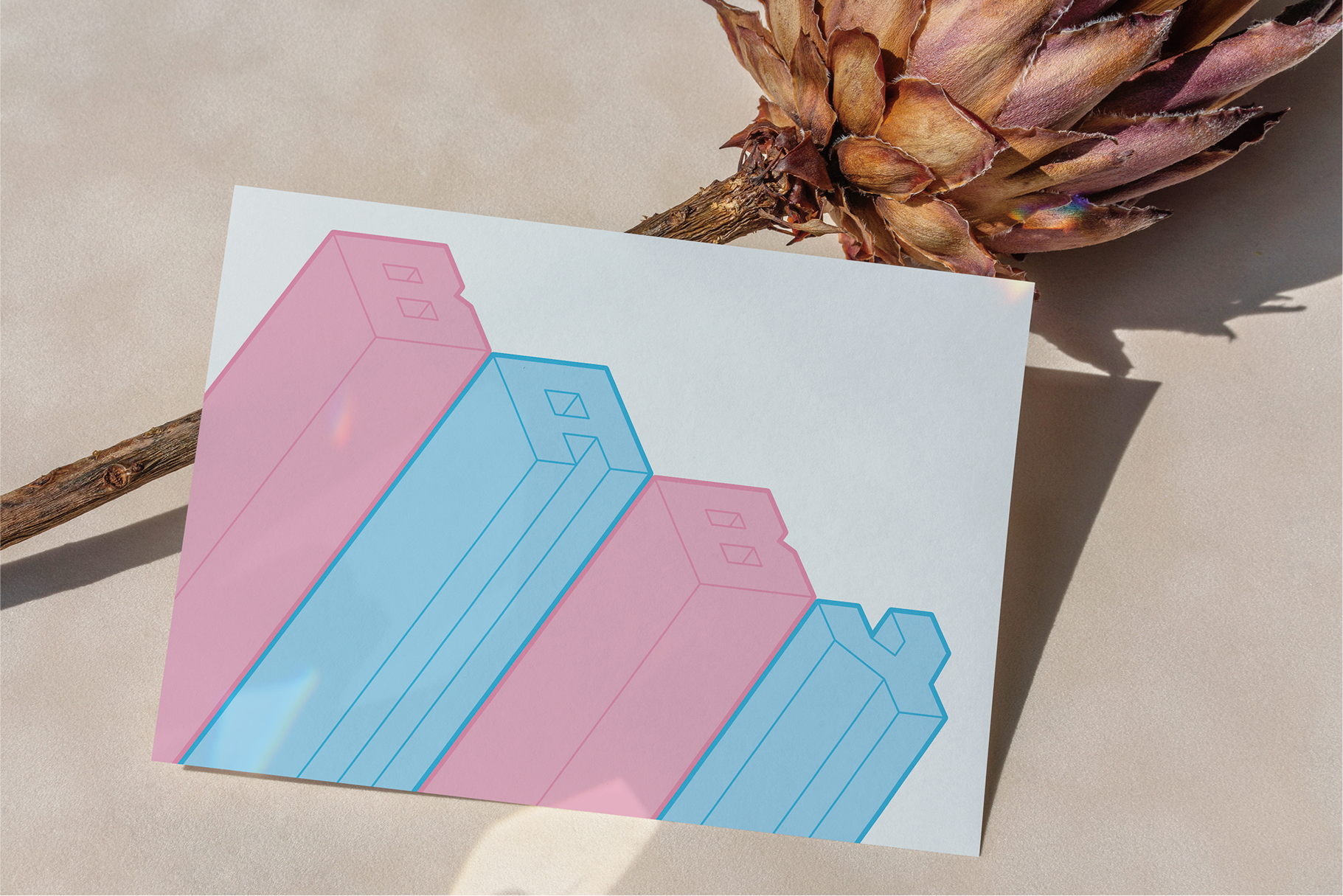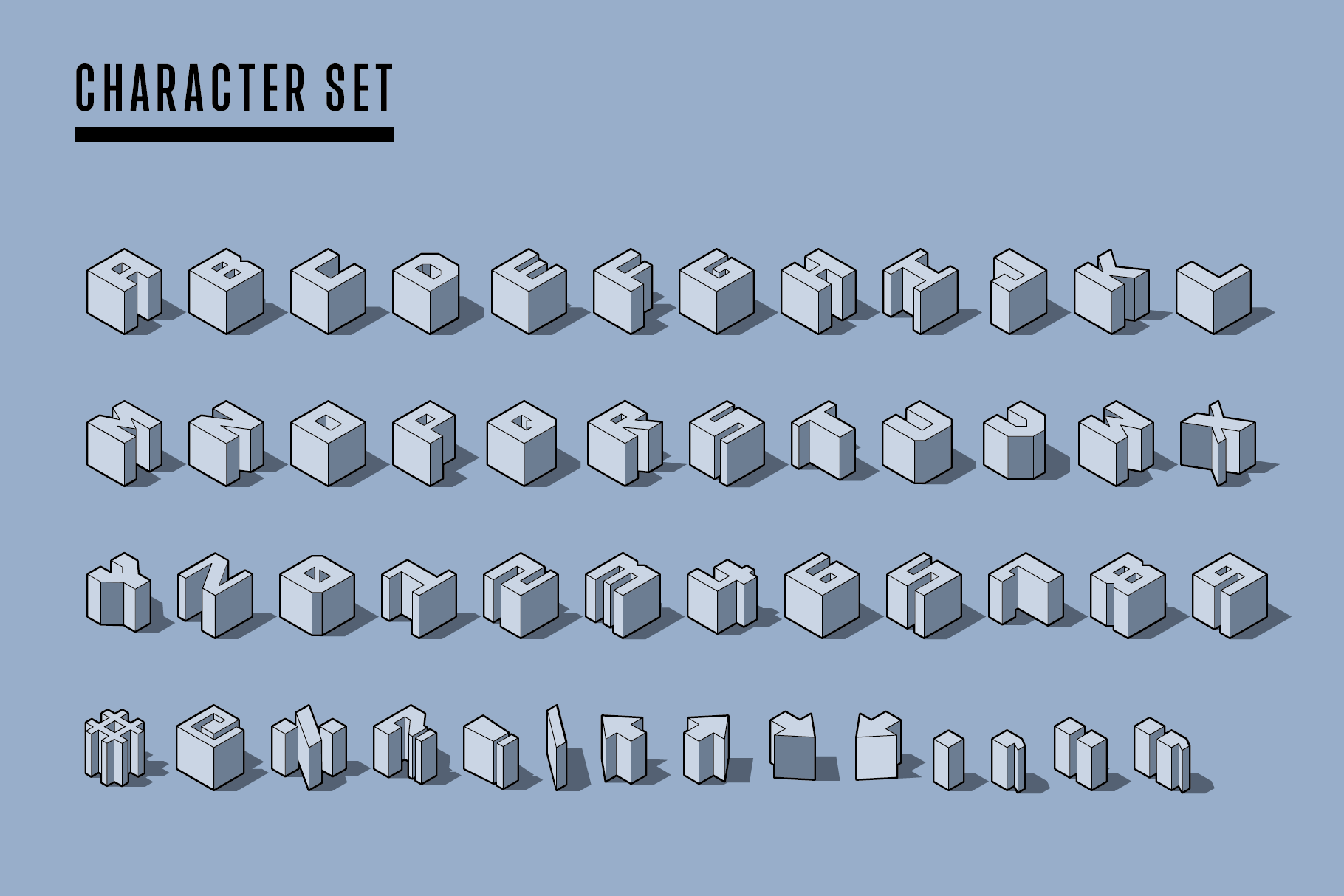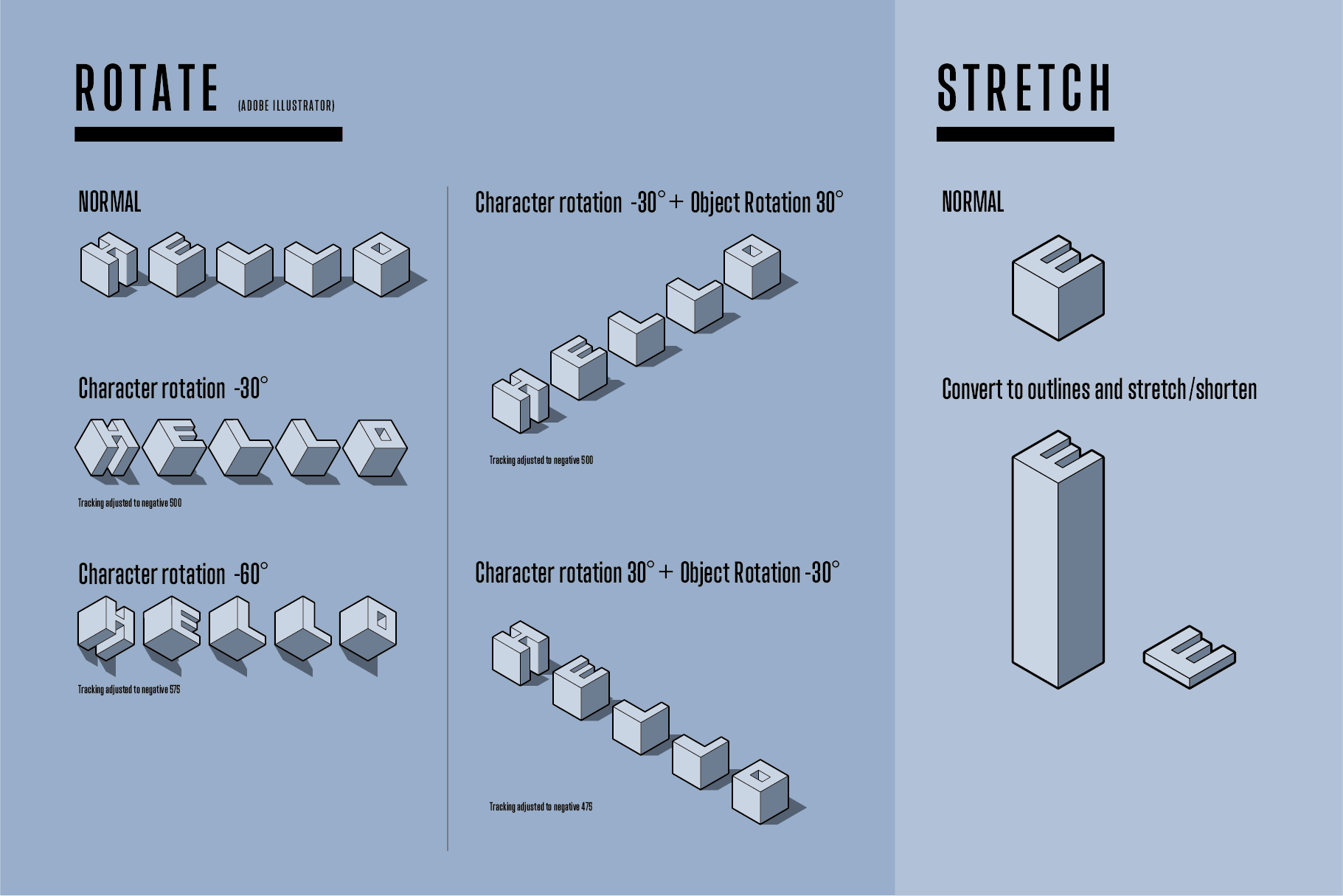
A unique 9-layer isometric font system designed for maximum creative flexibility. Each layer can be mixed, matched, and customized to create stunning dimensional typography effects. Born from geometric precision and isometric design principles. Available on Creative Market with full commercial licensing. Professional layered font system with thin, thick, outline, shadow, and dimensional components that stack perfectly. Minimal character set optimized for large-scale applications.